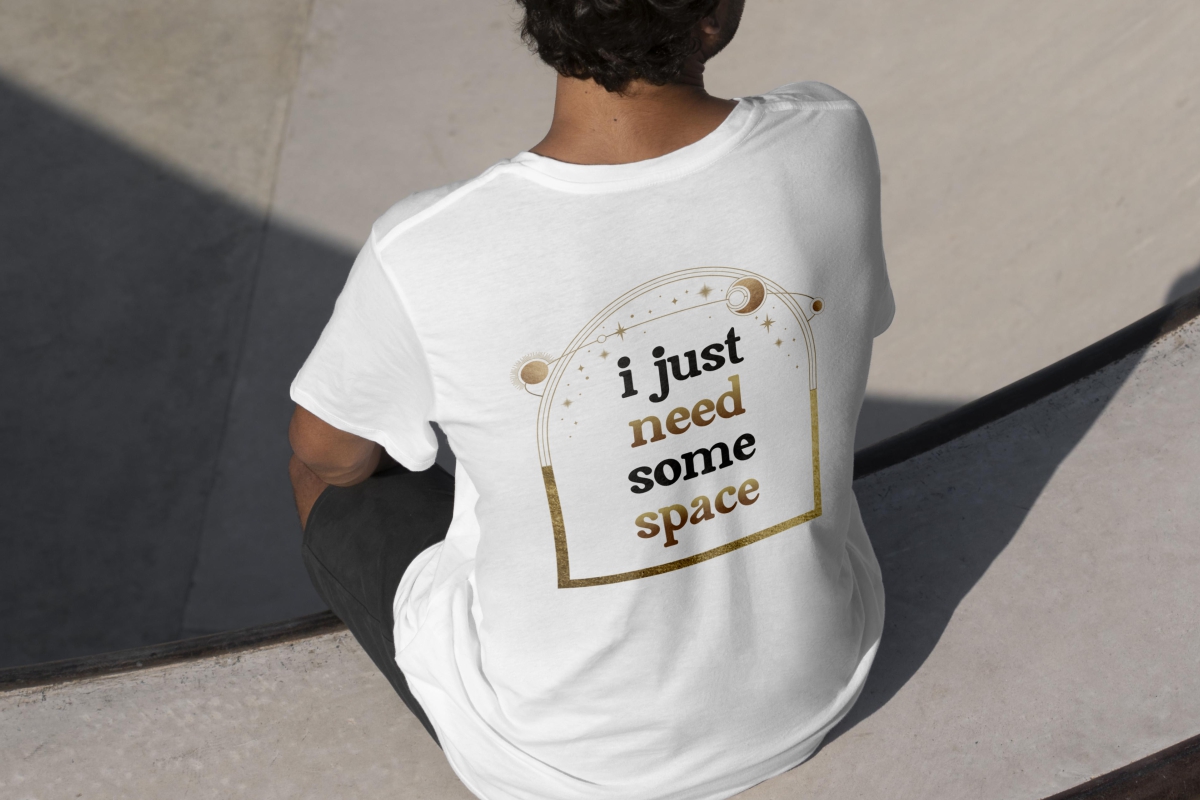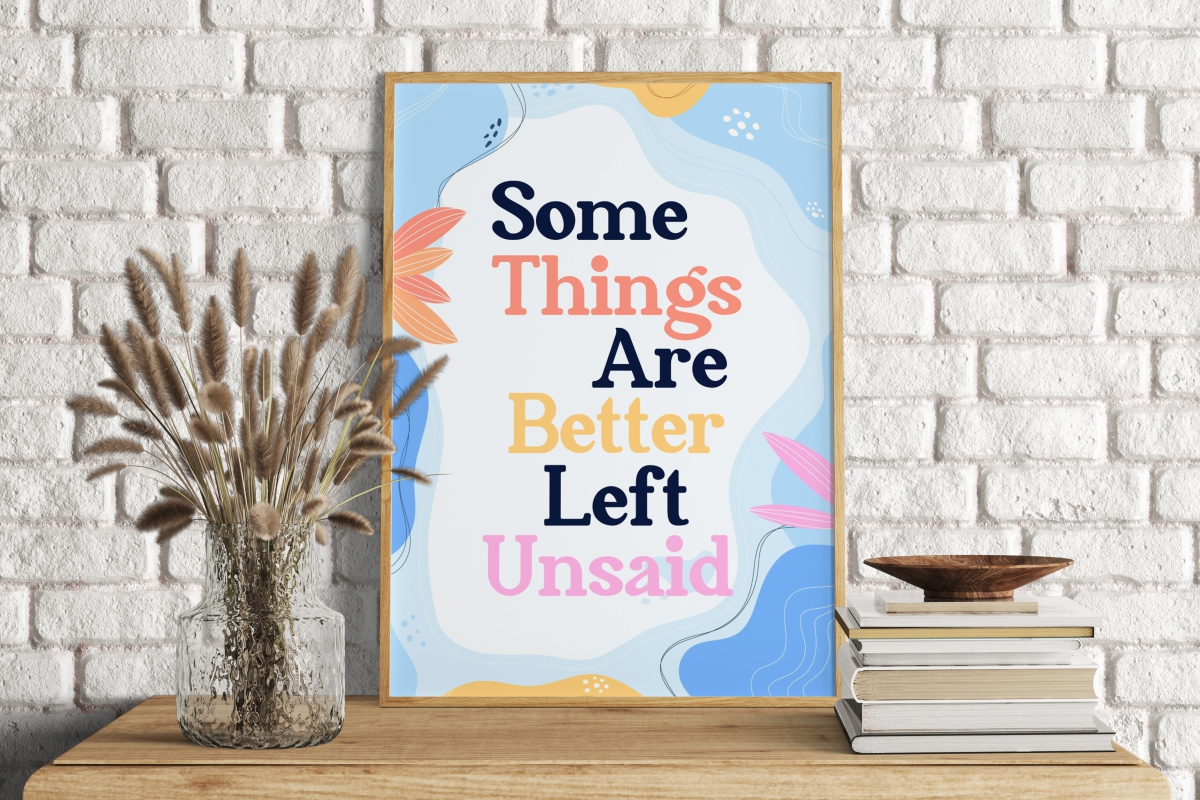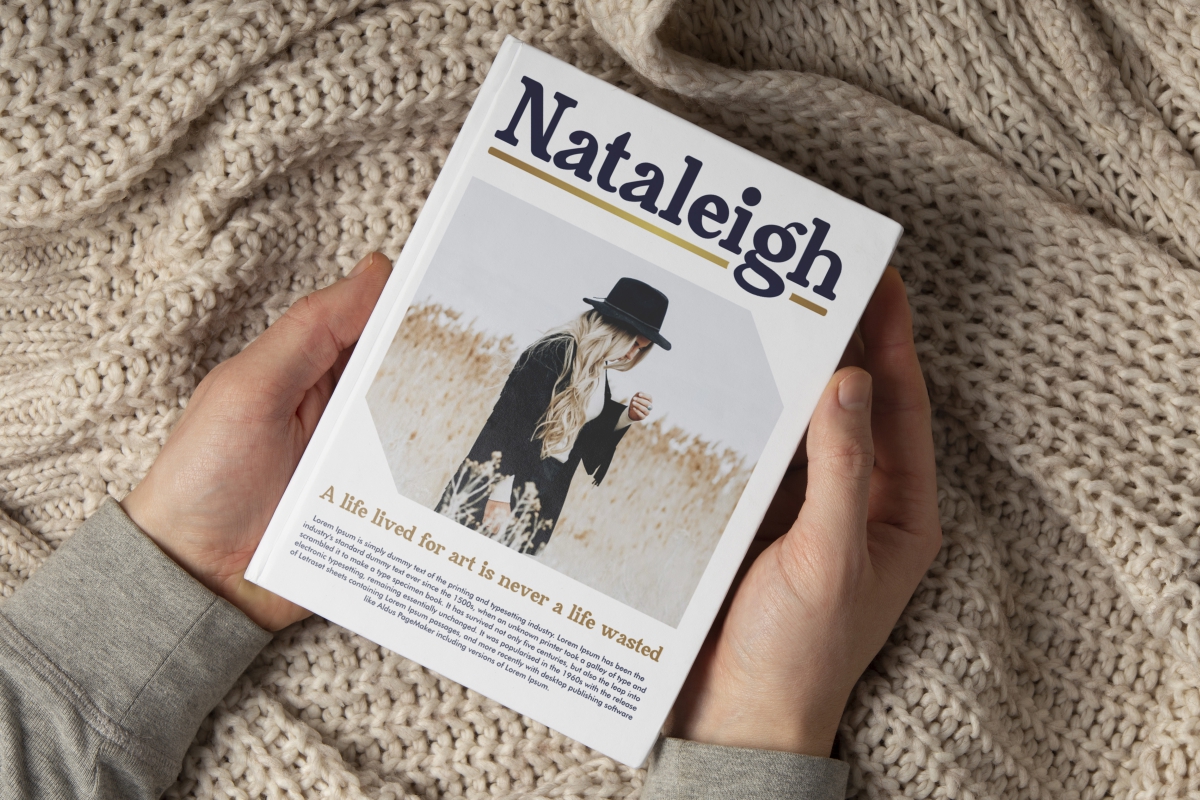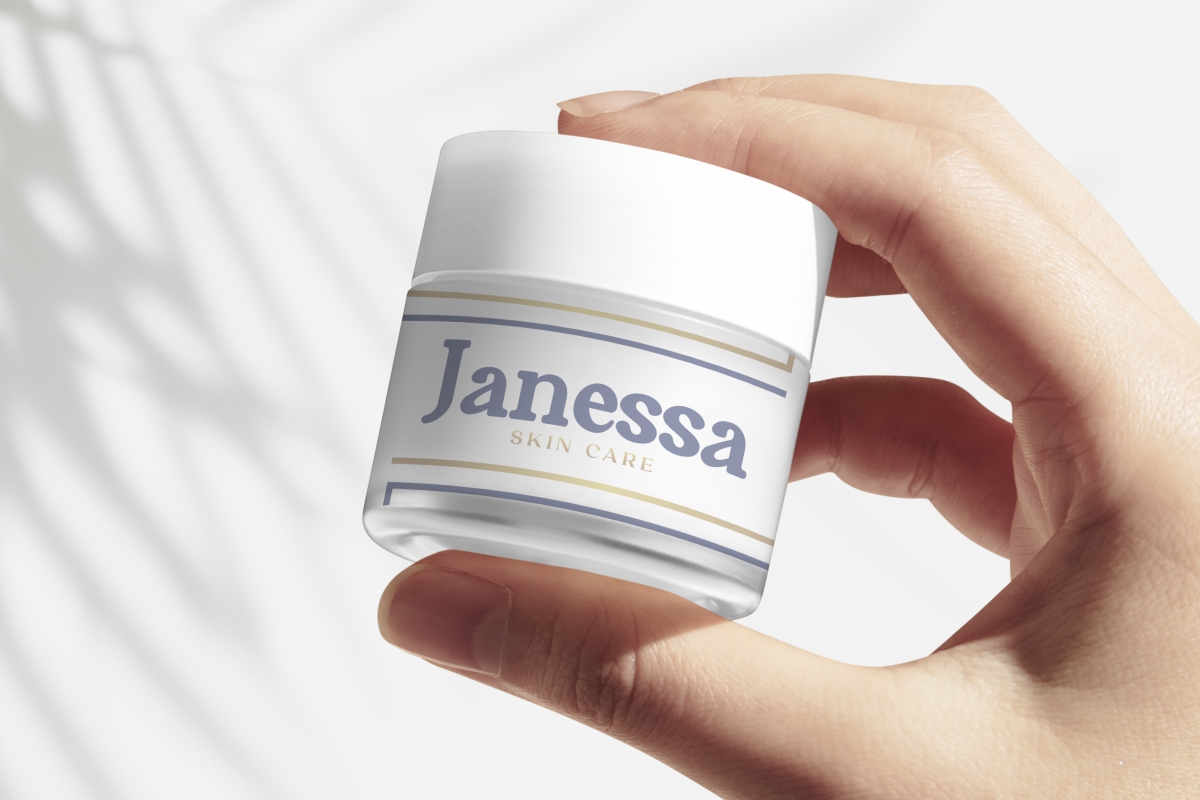
Trackwalker Font
Trackwalker Slab Serif Font
This is a serif font that comes in with two styles : regular and italic exclusively created by CalligraphyFonts. This font is suitable for any industry such as : author, boutique, cosmetic, craft, fashion, jewelry, publishing, and anything that requires an awesome look.